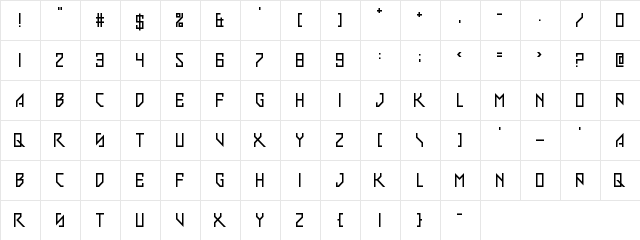
Slim Stradiva Regular
Design Context for Slim Stradiva Typeface
Slim Stradiva is a composed and adaptable typeface that performs quietly and consistently across a wide range of design contexts.